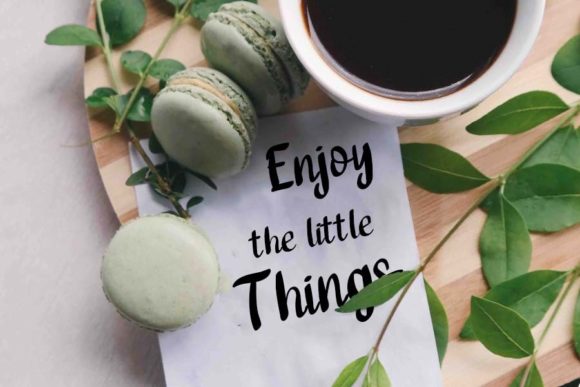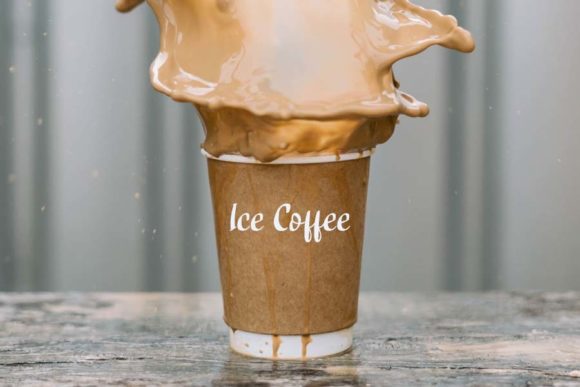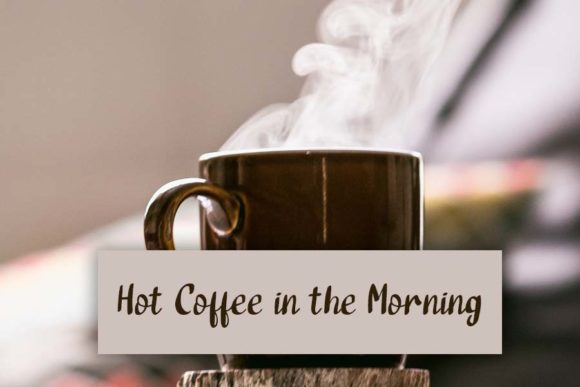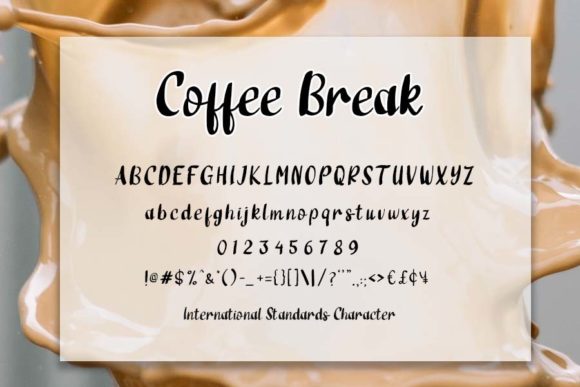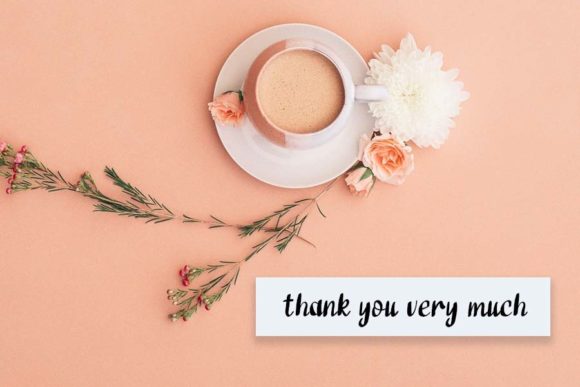
Coffee Break Font: The Perfect Addition to Your Typography Collection
Are you a designer, crafter, or typography enthusiast looking for a unique and versatile font to elevate your creative projects? Look no further than the Coffee Break Font, a simple and natural handwritten font that’s perfect for a wide range of applications. In this article, we’ll dive into the world of Coffee Break Font, exploring its features, benefits, and uses, and why it’s a must-have for any creative professional.
What is Coffee Break Font?
Coffee Break Font is a beautiful, handwritten font that’s designed to be clean, adaptable, and easy to read. Its simplicity and natural flow make it an excellent choice for a variety of projects, from digital designs to print materials. Whether you’re creating a logo, heading, or body text, Coffee Break Font is the perfect addition to your typography collection.
Key Features of Coffee Break Font
- Simple and Natural Handwritten Design: Coffee Break Font boasts a simple, handwritten design that’s both elegant and approachable.
- Clean and Adaptable: This font is designed to be versatile and adaptable, making it perfect for a wide range of applications, from digital designs to print materials.
- Easy to Read: Coffee Break Font is optimized for readability, ensuring that your text is clear and easy to understand.
- Perfect for Creative Projects: Whether you’re a designer, crafter, or typography enthusiast, Coffee Break Font is the perfect addition to your fonts’ library.
Benefits of Using Coffee Break Font
So, why should you choose Coffee Break Font for your creative projects? Here are just a few benefits of using this amazing font:
- Unique and Creative: Coffee Break Font adds a touch of personality and creativity to your designs, setting you apart from the crowd.
- Versatile and Adaptable: This font is perfect for a wide range of applications, from digital designs to print materials, and can be used for both headings and body text.
- Easy to Pair with Other Fonts: Coffee Break Font pairs well with other fonts, making it easy to create stunning typography combinations.
- High-Quality and Professional: With its clean and adaptable design, Coffee Break Font is perfect for professional designers and crafters who demand high-quality typography.
Uses of Coffee Break Font
Coffee Break Font is perfect for a wide range of creative projects, including:
- Digital Designs: Use Coffee Break Font to create stunning digital designs, from social media graphics to website headers.
- Print Materials: This font is perfect for print materials, such as brochures, flyers, and business cards.
- Logo Design: Coffee Break Font is an excellent choice for logo design, adding a touch of personality and creativity to your brand.
- Crafting and Scrapbooking: This font is perfect for crafters and scrapbookers who want to add a personal touch to their projects.
Tips for Using Coffee Break Font
Here are a few tips for getting the most out of Coffee Break Font:
- Experiment with Font Sizes: Try using Coffee Break Font in different sizes to create visual interest and hierarchy.
- Pair with Other Fonts: Experiment with pairing Coffee Break Font with other fonts to create stunning typography combinations.
- Use for Headings and Body Text: Use Coffee Break Font for both headings and body text to create a cohesive and professional look.
In conclusion, Coffee Break Font is a simple and natural handwritten font that’s perfect for designers, crafters, and typography enthusiasts. With its clean and adaptable design, this font is versatile and easy to use, making it an excellent addition to your fonts’ library. Whether you’re creating digital designs, print materials, or logos, Coffee Break Font is the perfect choice for adding a touch of personality and creativity to your projects.